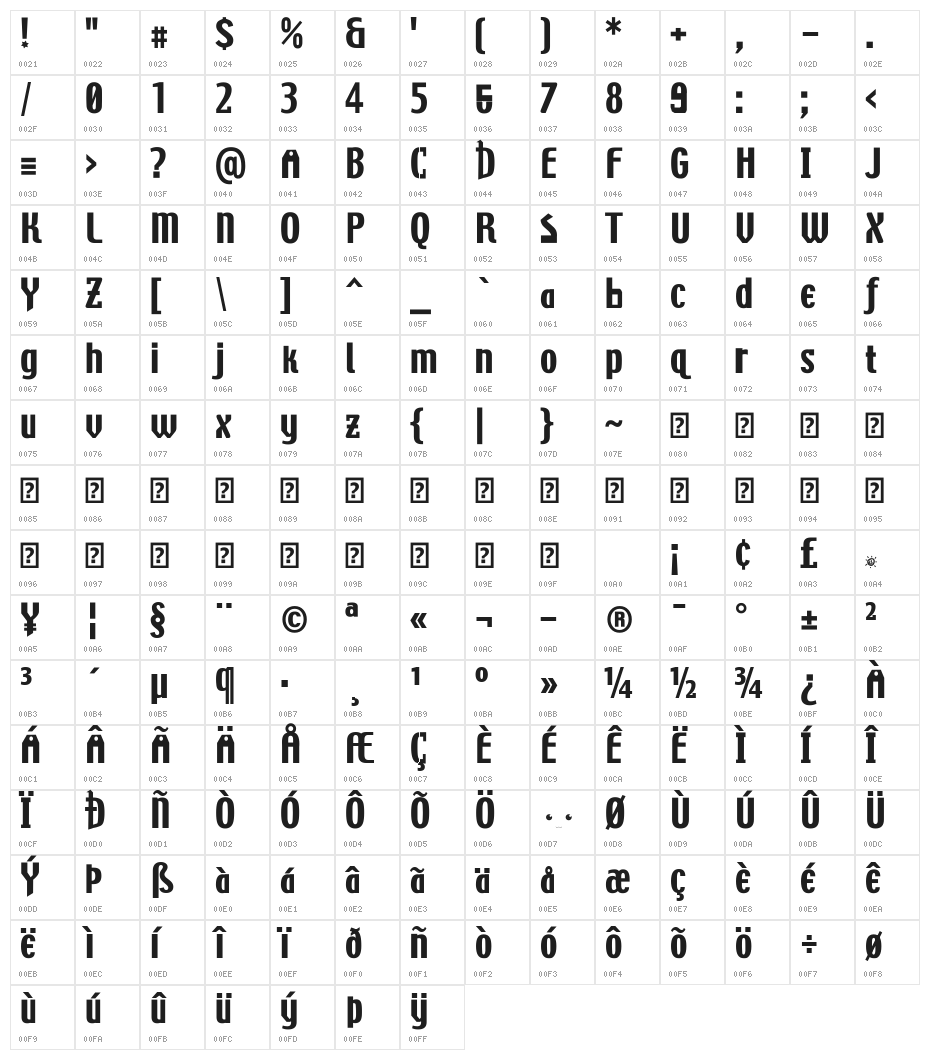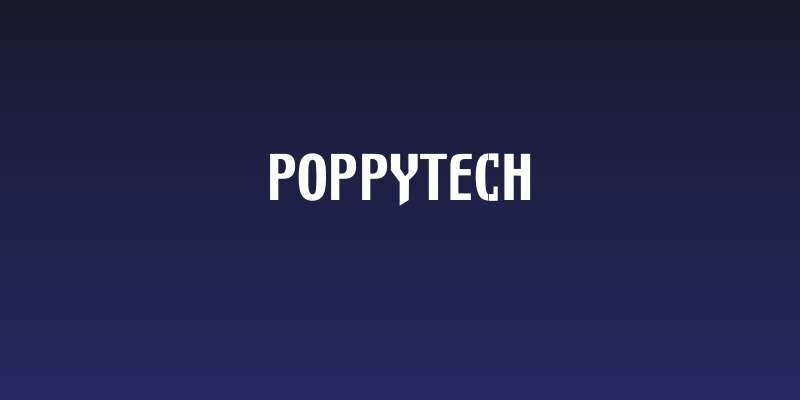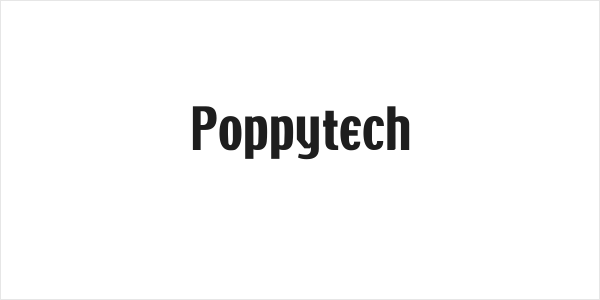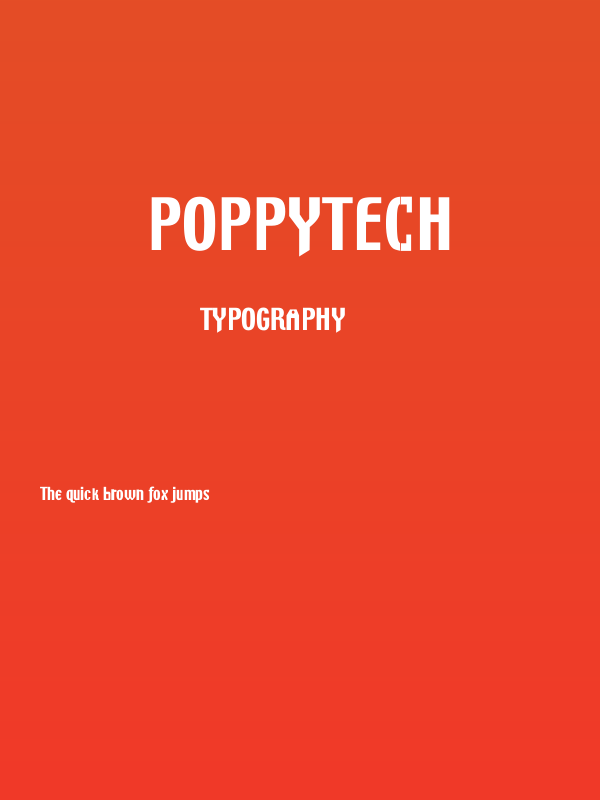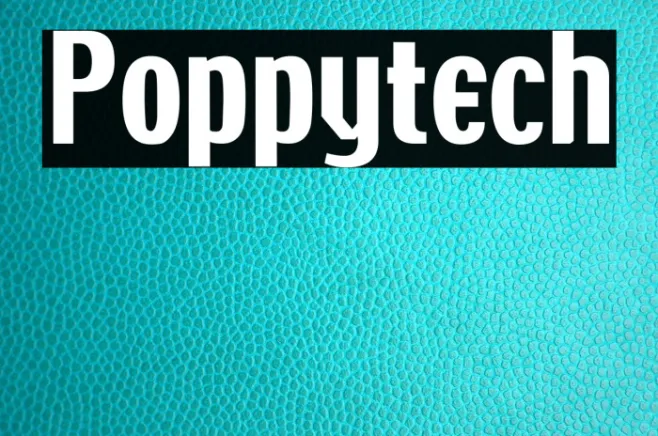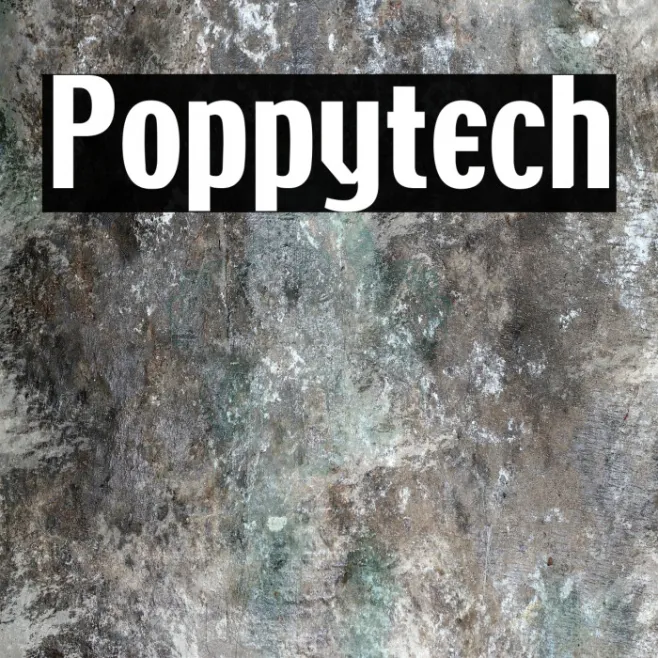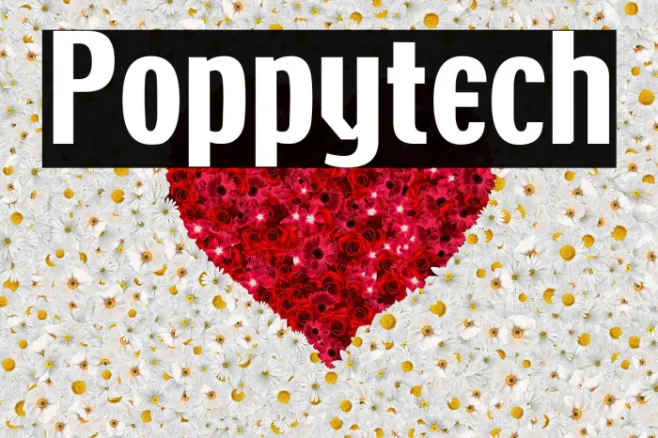
Poppytech Font
Poppytech Description
This font features a bold and modern design with a unique geometric flair. The characters are constructed with sharp angles and clean lines, giving it a futuristic and tech-inspired appearance. The uppercase letters exhibit a strong presence with their uniform height and consistent stroke width, while the lowercase letters maintain a similar style, ensuring readability and cohesion. The numerals are distinct and align well with the overall aesthetic, making them suitable for digital displays. Special characters are crafted with the same attention to detail, adding versatility to the font's use. The overall design is striking and memorable, ideal for projects that require a contemporary and bold statement.
| Use Case | Headlines, Logos, Digital displays |
| Proposed Projects | Ideal for technology branding, digital interfaces, video game graphics, and modern advertising campaigns. |